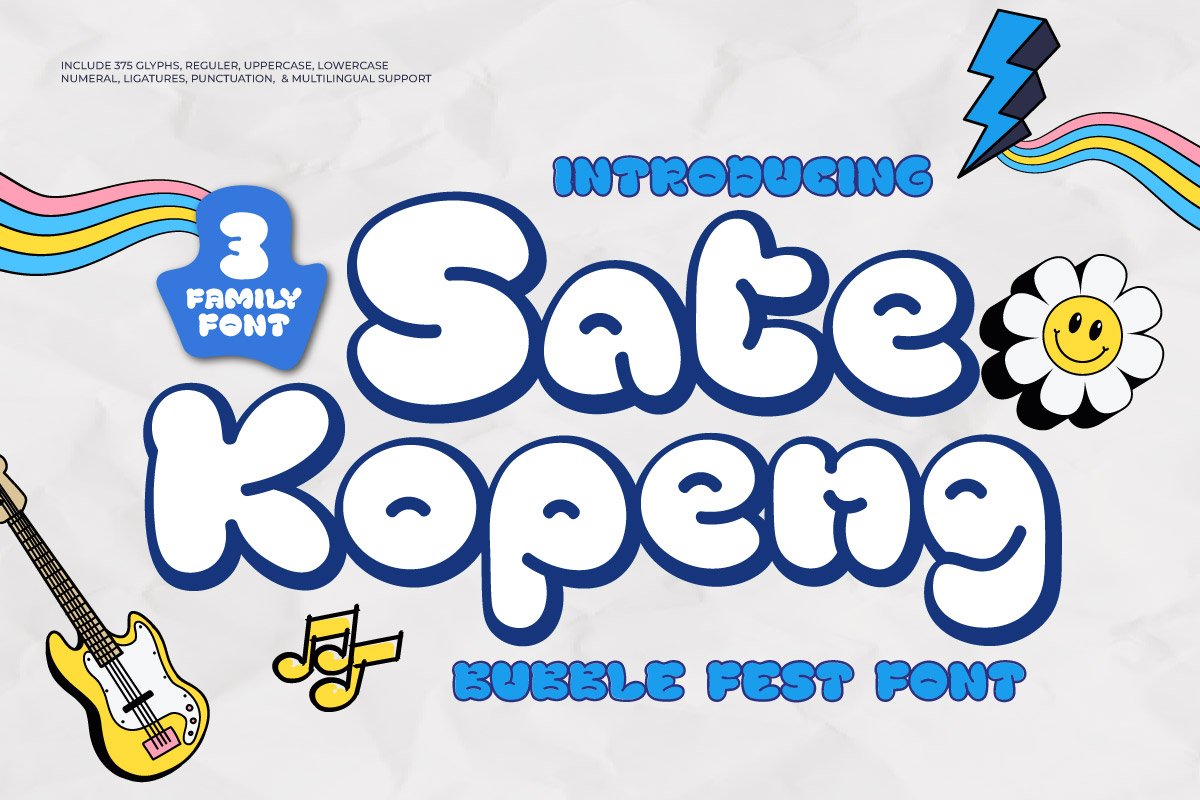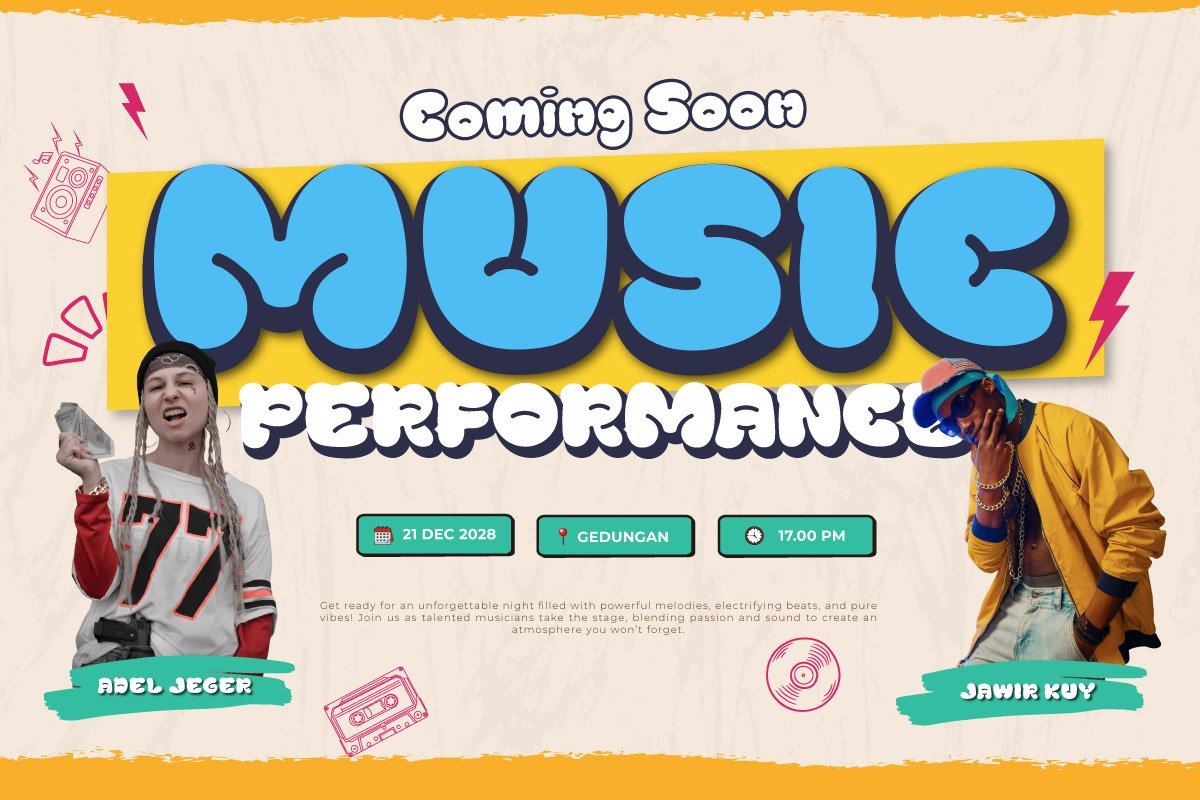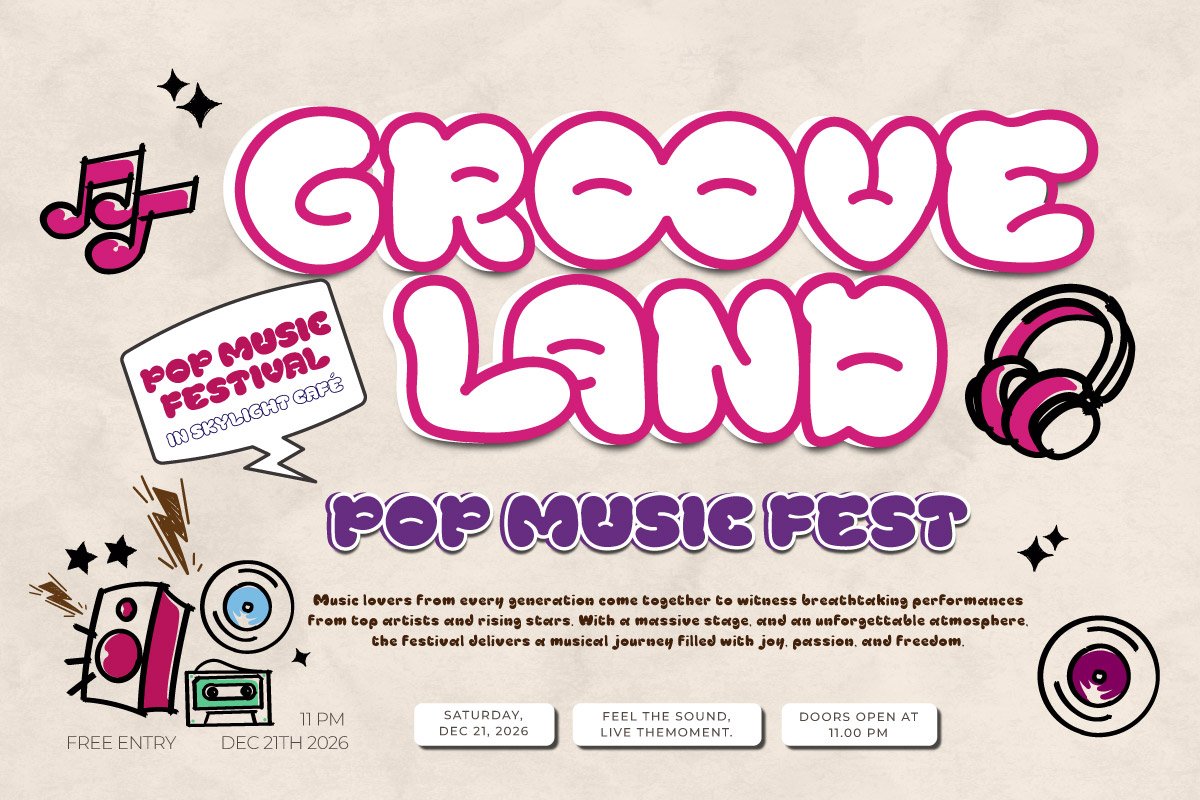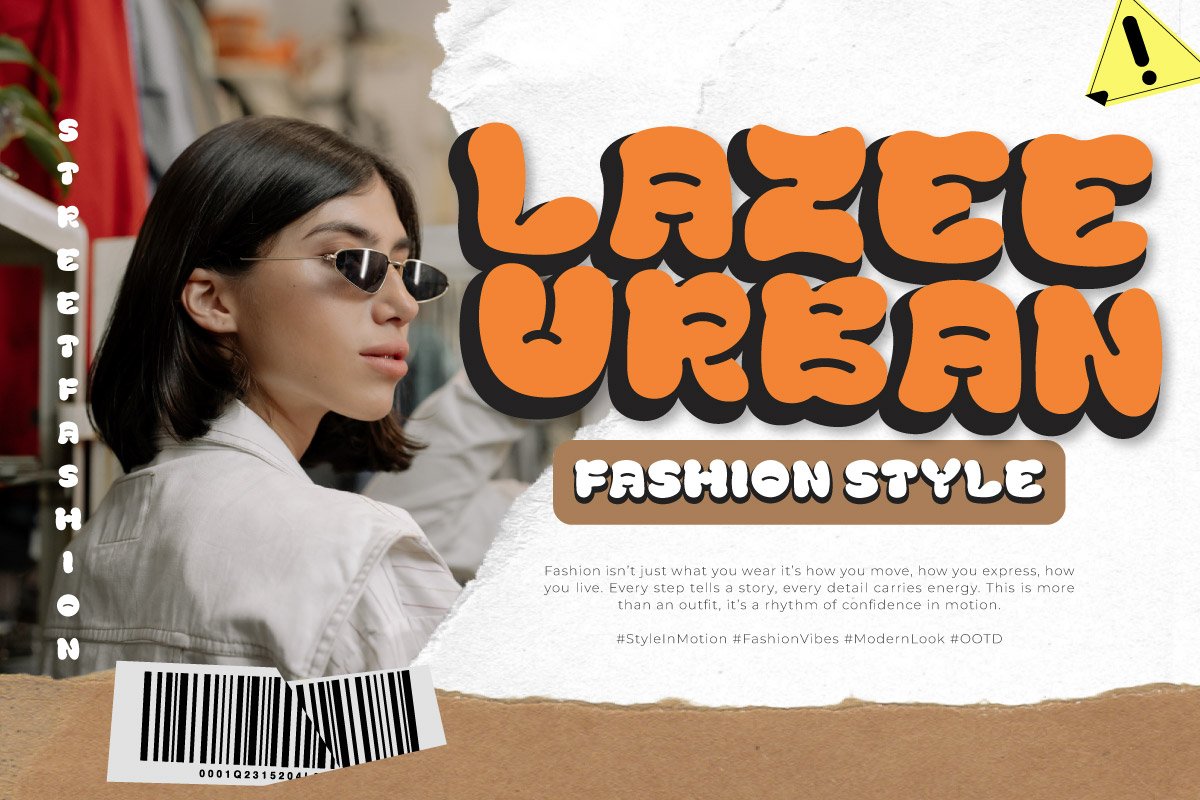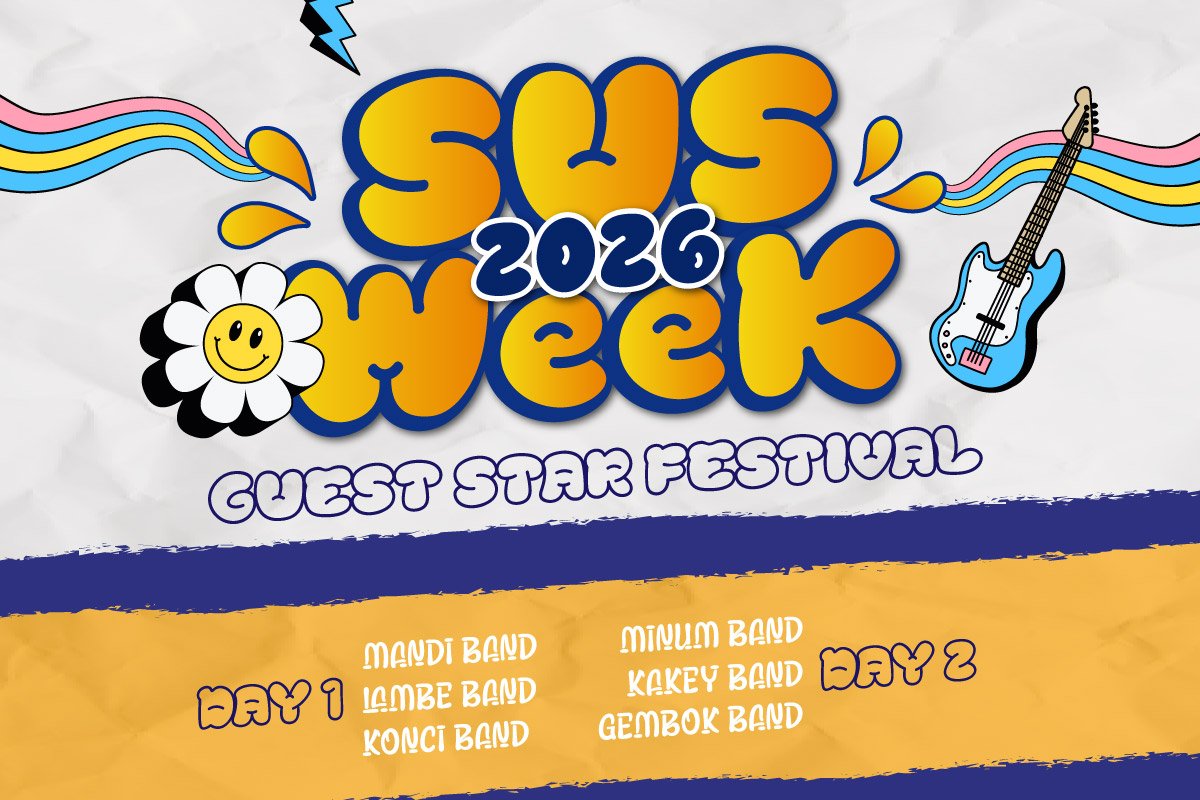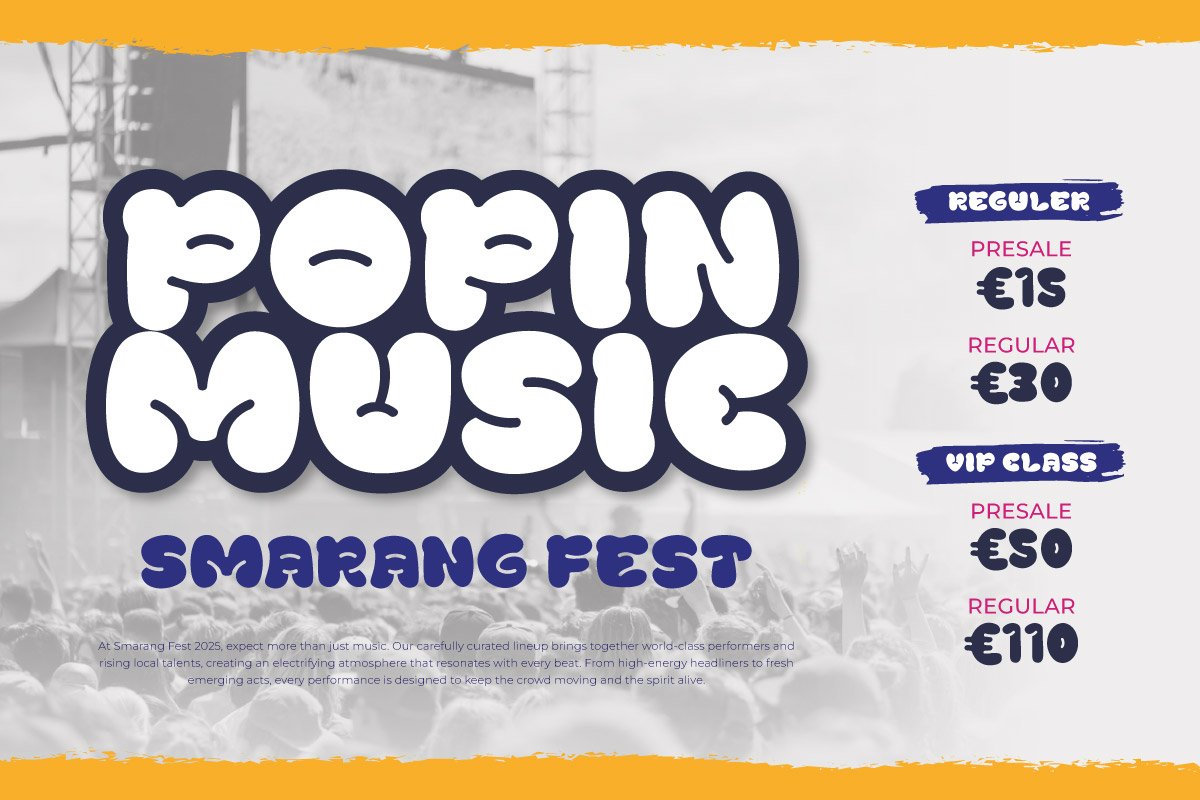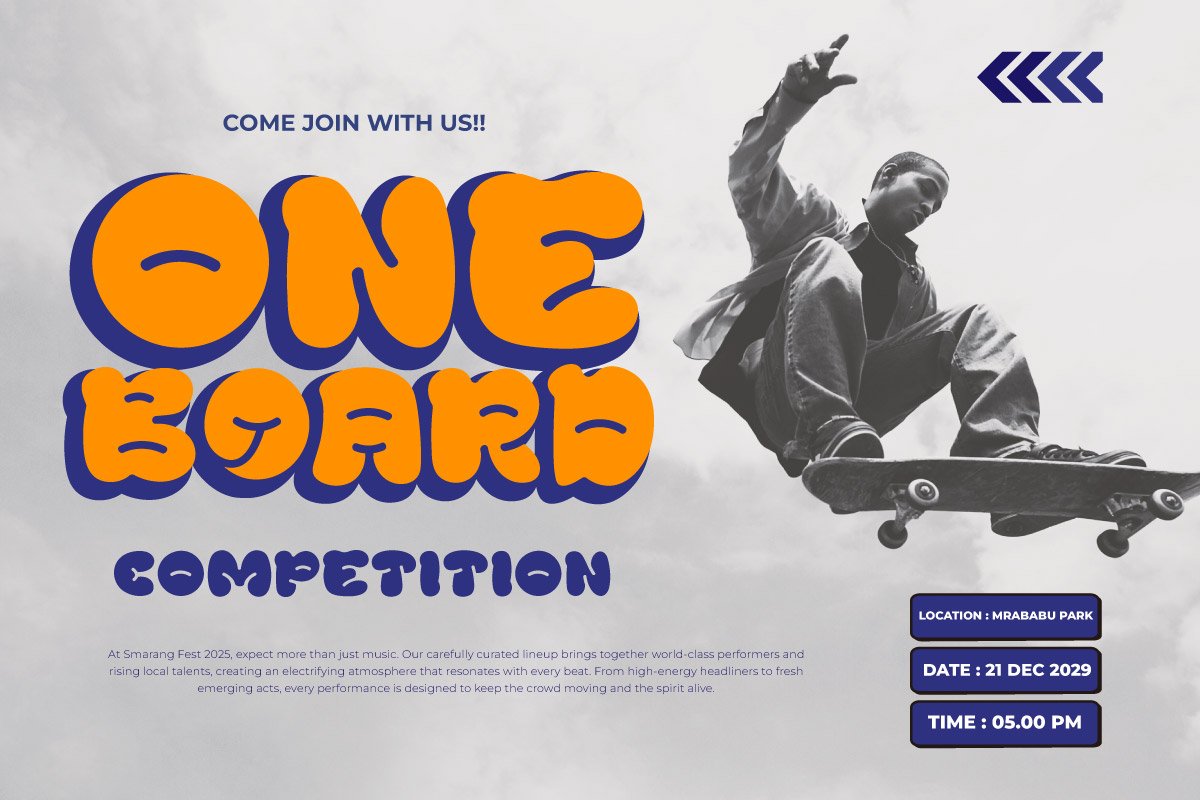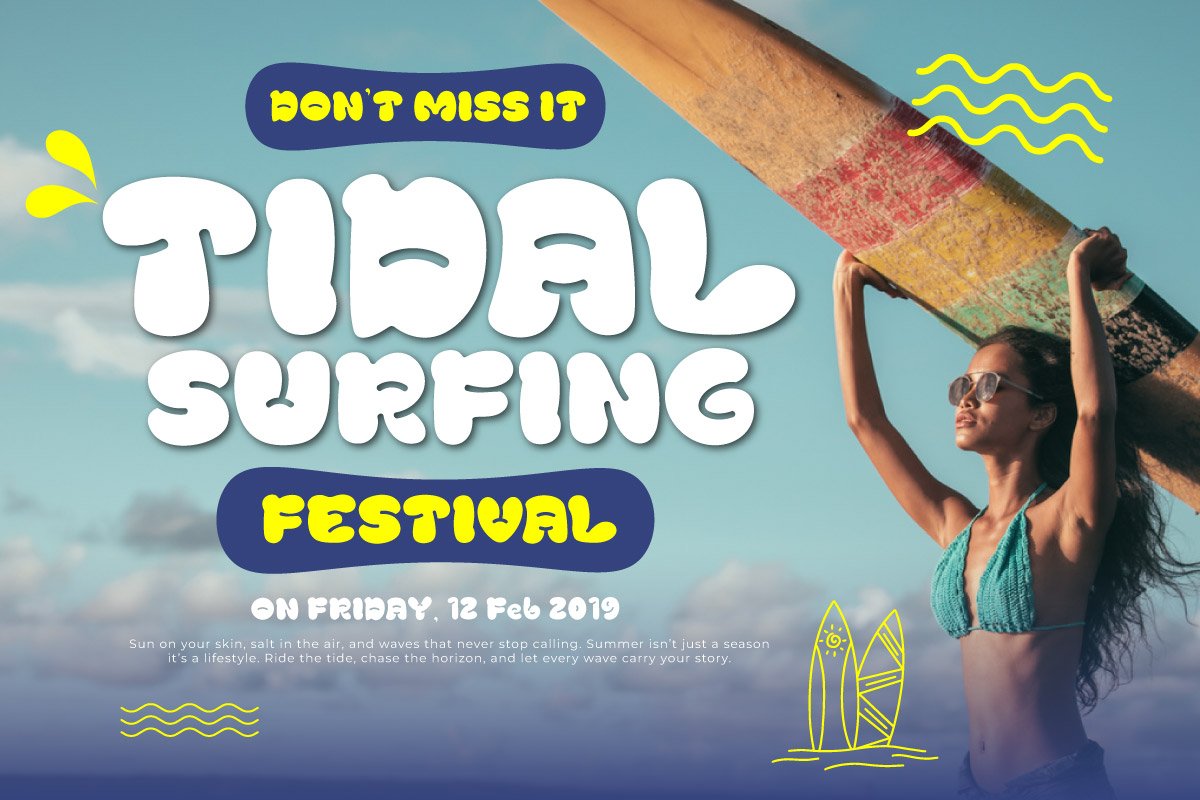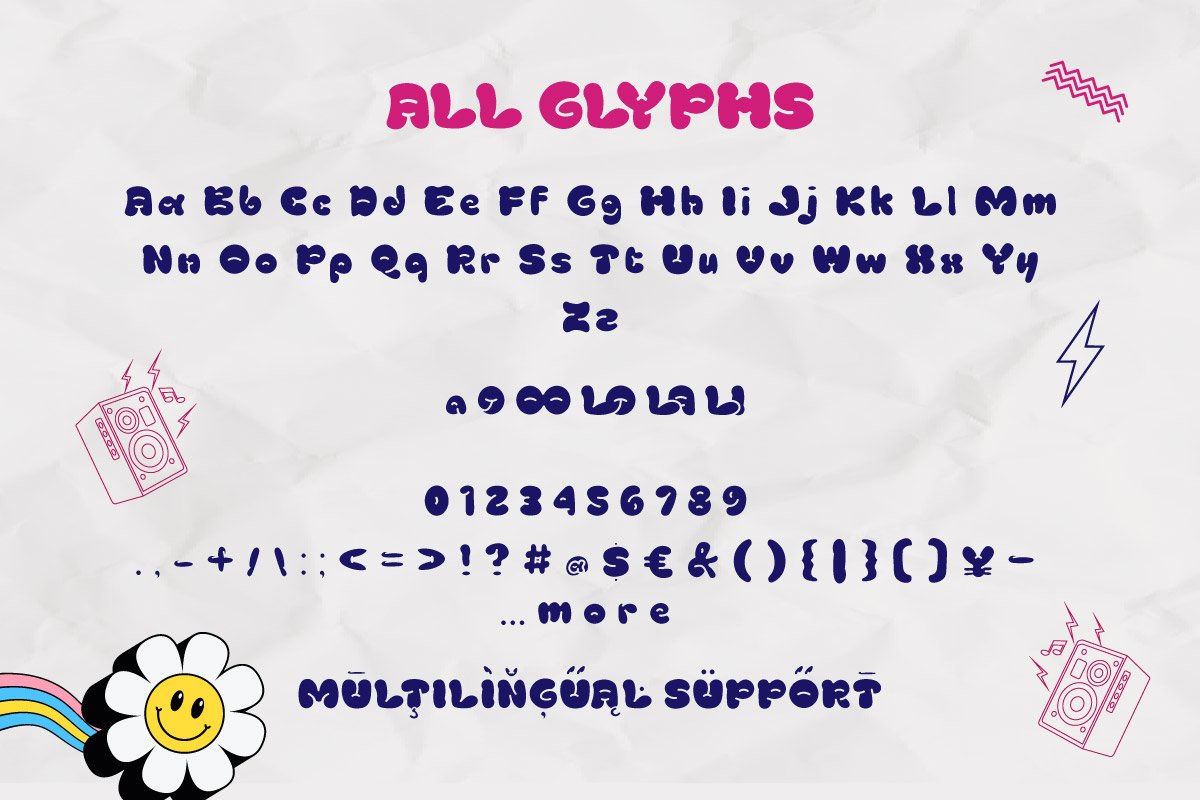
Sate Kopeng – Festival Display Font
BRING THE FIESTA TO YOUR DESIGNS WITH FUN, VIBRANT, AND EYE-CATCHING TYPOGRAPHY!
Sate Kopeng is a playful and bold display font that embodies the joyful, carefree spirit of street festivals and cultural celebrations. With its bubbly, rounded forms and energetic vibe, this font is perfect for adding a splash of fun and creativity to any project. Whether you’re designing for a music event, a food fair, or urban-themed content, Sate Kopeng ensures your message stands out with personality and charm.
This font comes in 3 exciting styles—Regular, Outline, and Solid—giving you endless possibilities to mix, match, and layer for captivating typographic compositions. With over 375 glyphs, including uppercase and lowercase letters, numerals, ligatures, punctuation, and extensive multilingual support, Sate Kopeng offers both versatility and functionality. Ideal for posters, logos, merchandise, social media graphics, and anything that calls for a festive, youthful touch.
Unleash your creativity and spread good vibes with Sate Kopeng—a font that’s as fun to use as it is to look at!